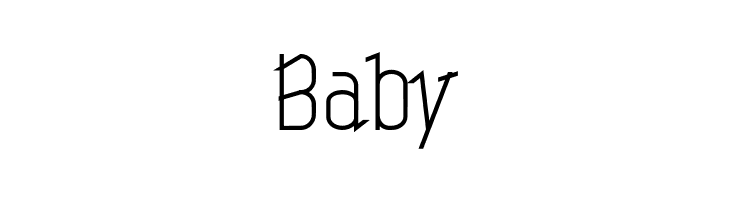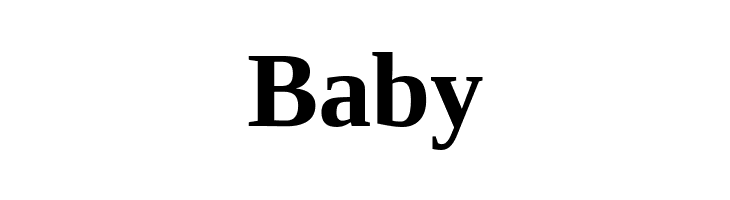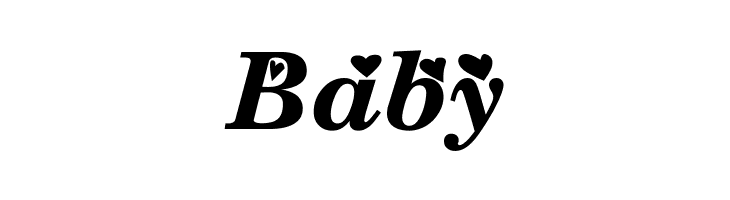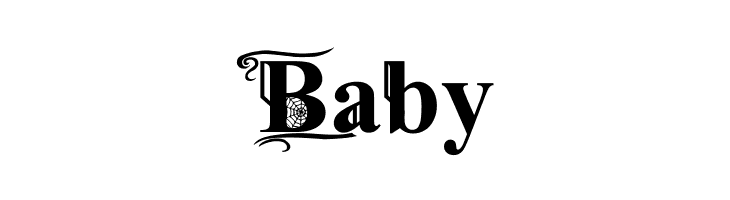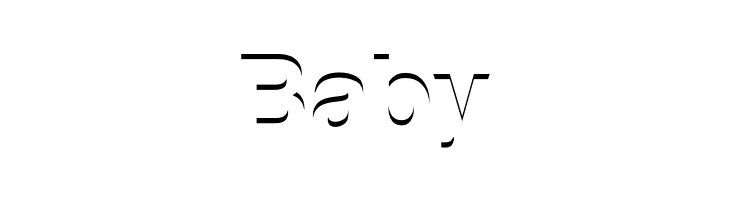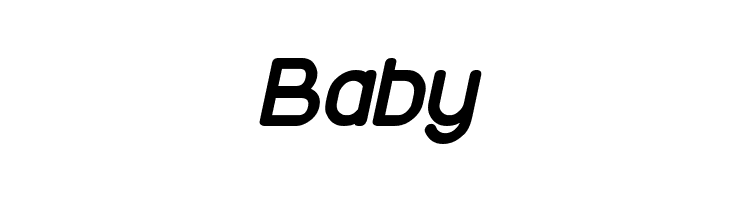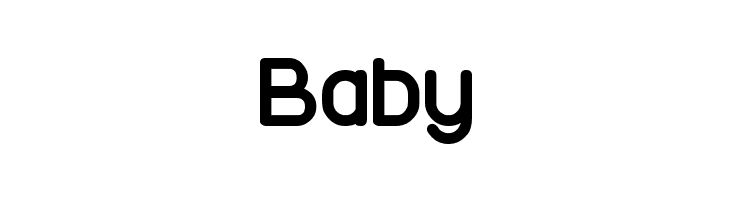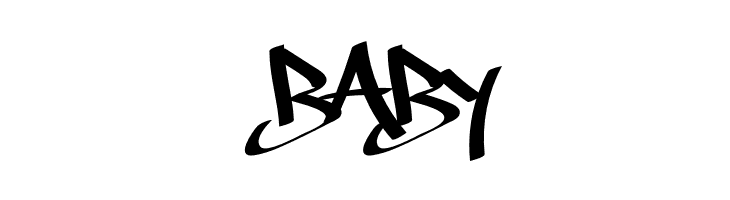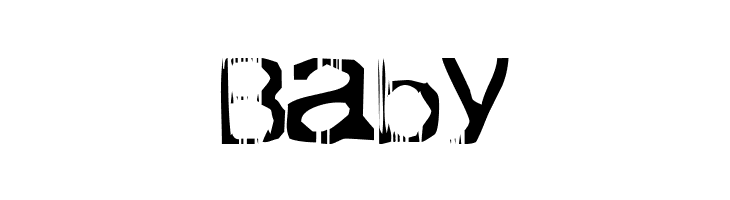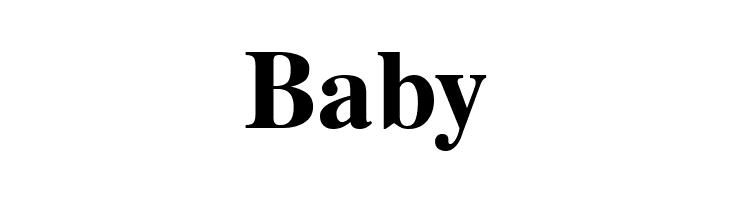
An ornate and decorative font with elegant swirls and loops.
A bold, playful handwritten font with rounded, energetic letterforms.
A bold, graffiti-inspired font with dynamic and expressive strokes.
A modern serif font with clean lines and balanced proportions.
A bold serif font with strong strokes and pronounced serifs, ideal for authoritative and traditional designs.
A bold serif font with thick strokes and strong serifs, perfect for impactful headlines.
A bold, angular font with a modern, geometric style.
A bold, italicized font with a dynamic and modern style.
A bold, playful font with a tropical, hand-drawn style.
A bold, modern sans-serif font with clean lines and uniform strokes.
A bold, playful font with a handwritten, dynamic style.
A modern, geometric font with rounded edges and balanced character spacing.
A bold, classic serif font with strong, elegant strokes.
A bold, distressed font with a vintage horror aesthetic.
A bold, rounded font with a modern and approachable style.
A bold, italic font with smooth, rounded edges and a modern appearance.
A bold, decorative serif font with ornate detailing and vintage flair.
A bold, robust font with thick strokes and balanced spacing.
A bold, italicized font with classic elegance and dynamic flair.
A bold serif font with a classic and authoritative style.
A bold, italic serif font with a classic and elegant style.
A bold, rounded font with a playful and dynamic style.
A bold, angular font with a modern, geometric style.
A modern, angular font with a blend of geometric and organic elements.
A modern, abstract font with a unique cut-out style and geometric shapes.
A bold, playful handwritten font with a casual and friendly style.
A bold, playful handwritten font with thick strokes and a casual style.